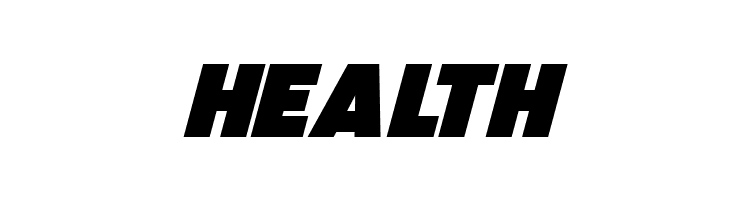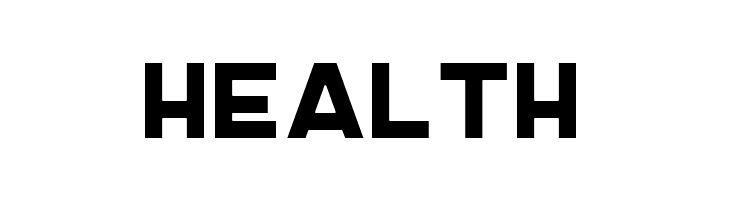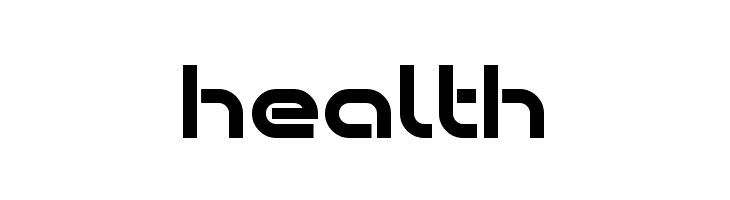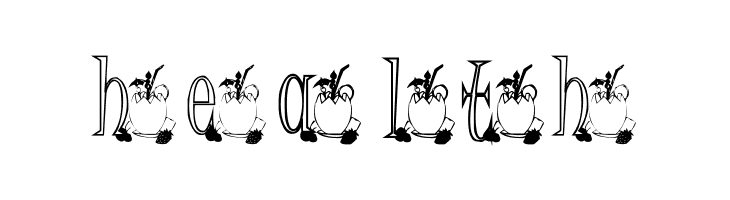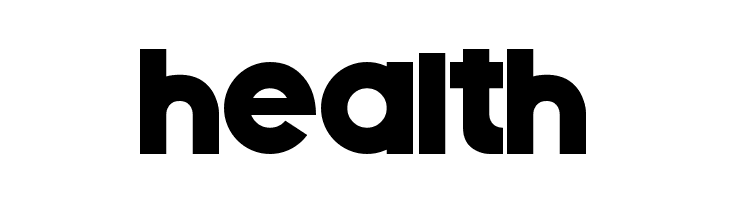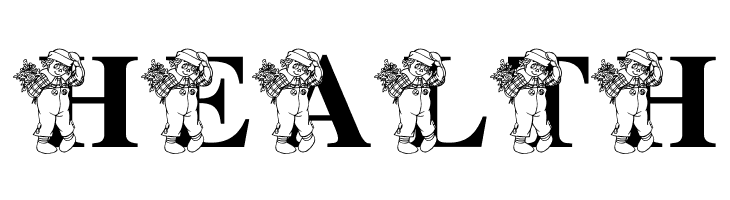
A decorative font with floral embellishments and bold, framed special characters.
A bold, geometric sans-serif font with a modern and powerful aesthetic.
A bold and robust font with thick strokes and a strong presence.
A playful, decorative font with cartoon characters integrated into bold serif letters.
A bold, geometric font with sharp angles and a modern aesthetic.
A bold, rounded font with a modern and clean appearance.
A classic monospaced typewriter font with a light weight and low contrast, ideal for structured and readable text.
A bold, geometric font with a modern and impactful style.
A modern, geometric font with clean lines and a futuristic style.